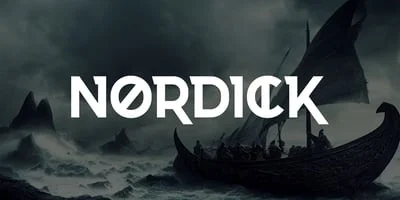
Nordick Font
Nordick Font is ideal for Viking heritage museums, Norwegian outdoor gear companies, Scandinavian adventure tours, Nordic fitness brands, rugged winter sports equipment, Arctic exploration campaigns, traditional Norse craft workshops, and authentic Northern European wilderness experiences. This robust typeface brings Nordic strength and Viking resilience to any design project celebrating the hardy spirit and adventurous nature of Northern European culture.
What makes Nordick Font exciting is its powerful fusion of Viking heritage with modern Nordic functionality that perfectly captures the rugged determination and natural strength characteristic of Scandinavian outdoor culture and Norse warrior traditions. The sturdy letterforms feature Nordic durability and Viking boldness that create an unmistakably strong appearance. Each character embodies the resilience of Nordic peoples, making it ideal for brands that represent outdoor adventure, Viking heritage, and the uncompromising strength found in Northern European wilderness traditions.
The Nordick Font family typically includes regular and bold weights with complete uppercase and lowercase letters, numbers, punctuation marks, and Nordic symbols. Many versions feature additional rugged decorative elements, Viking motifs, and Scandinavian outdoor symbols that enhance the hardy aesthetic and provide creative flexibility for adventure and heritage design applications.
Whether you're developing Nordic adventure brands or creating Viking heritage materials, Nordick Font offers unmatched Nordic authority and Viking strength. This powerful typography choice transforms ordinary text into adventurous communications that resonate with audiences appreciating Scandinavian outdoor culture and Norse traditions. The font's rugged construction ensures exceptional performance across adventure applications while maintaining its distinctive Nordic character that makes every design project feel like an epic journey through the untamed wilderness of Scandinavia where Viking spirit meets modern adventure in perfect Northern European harmony.